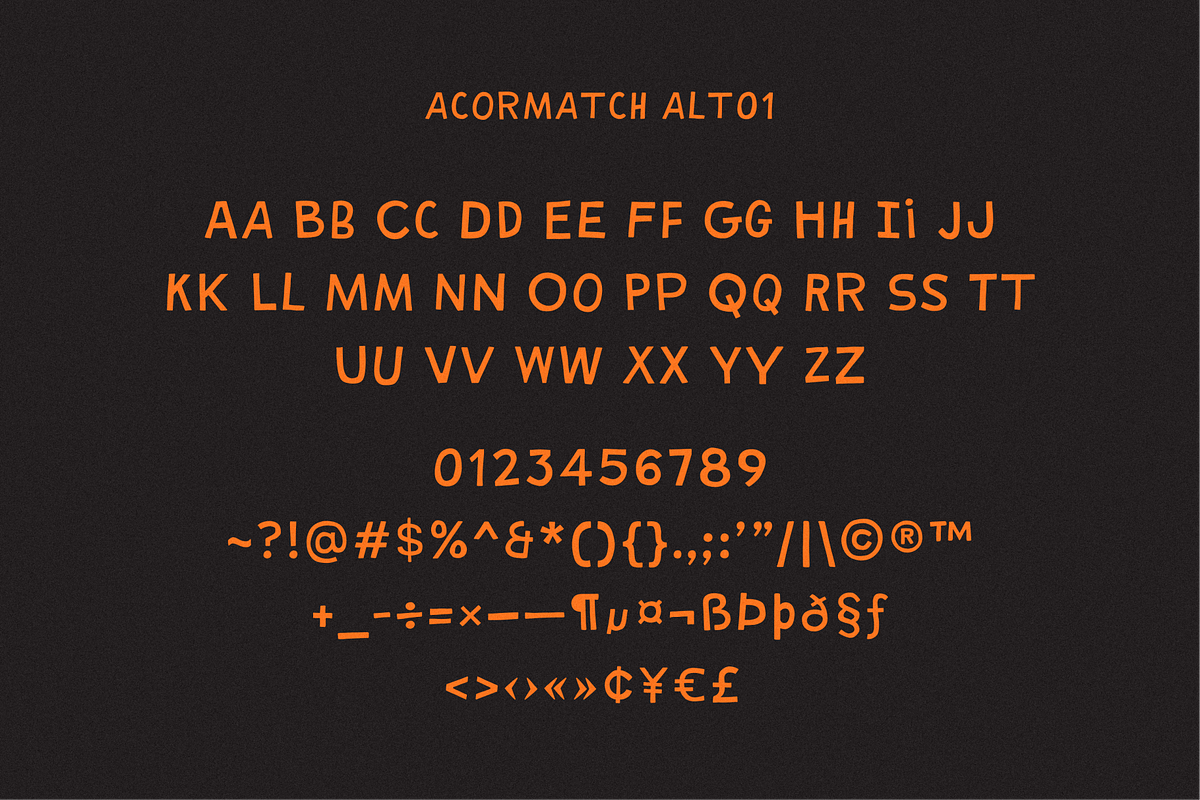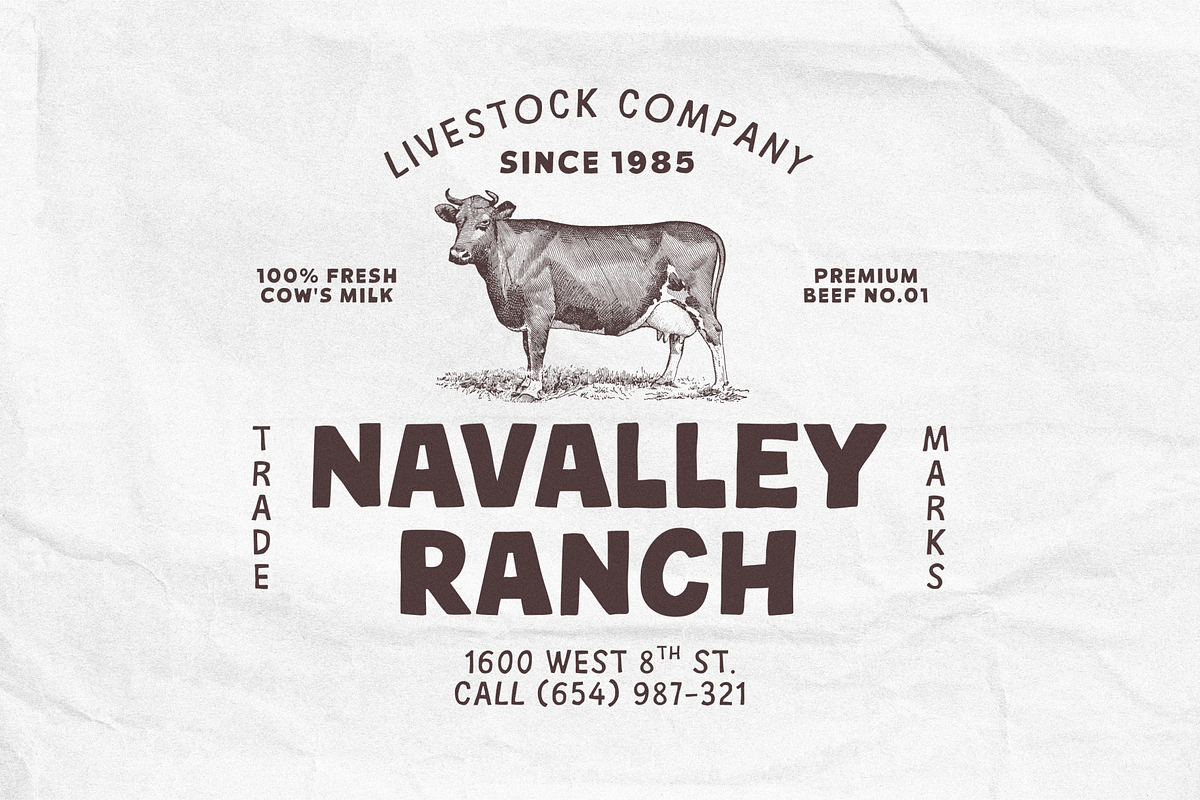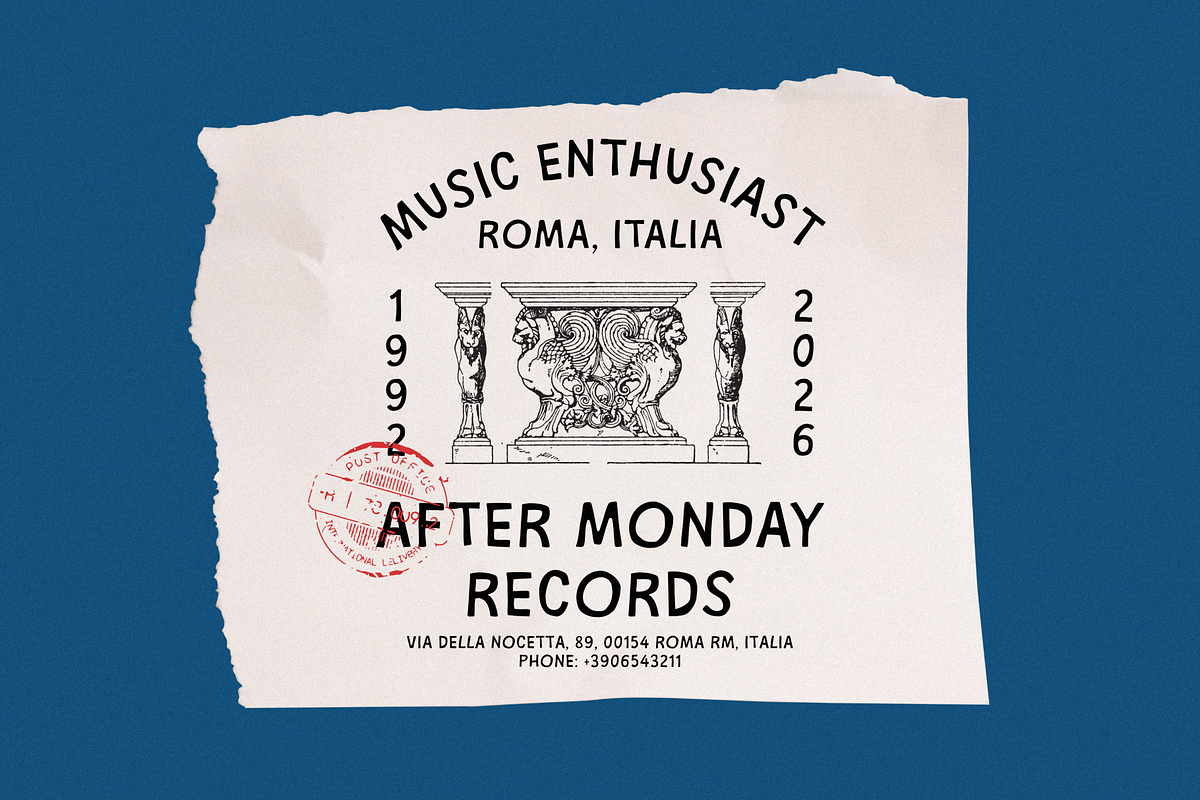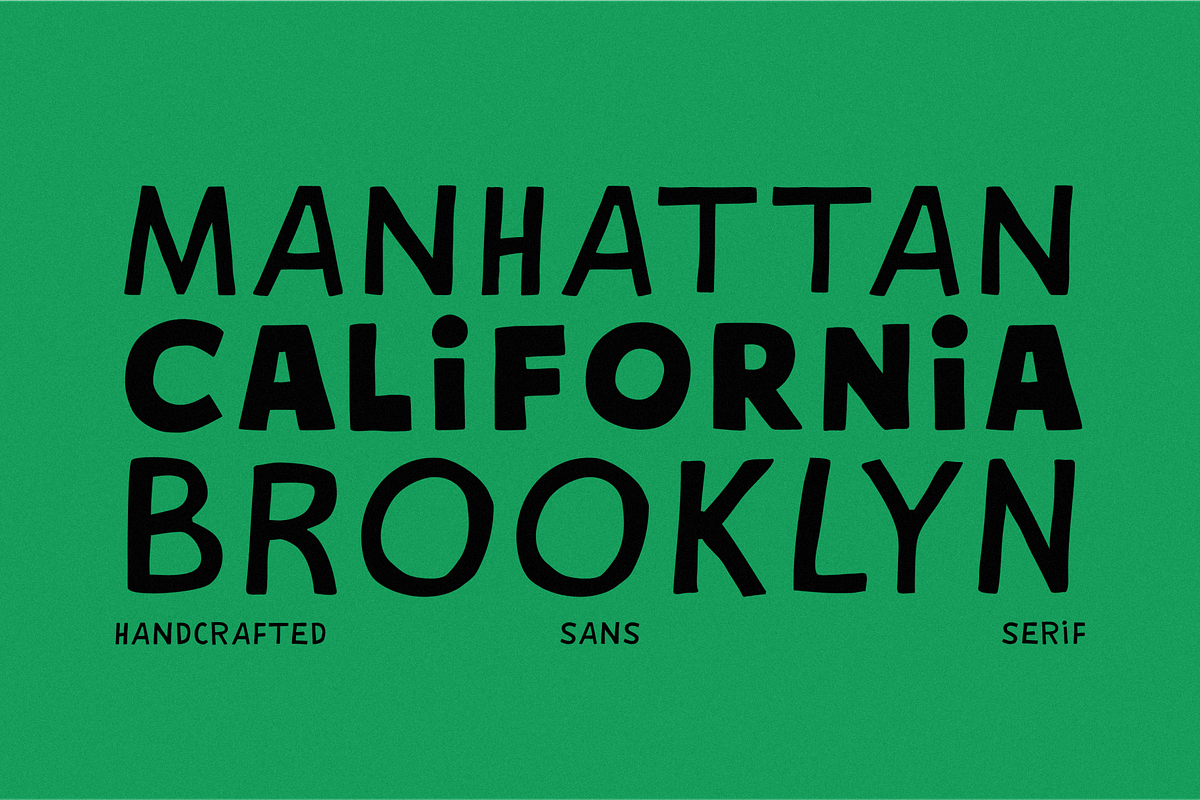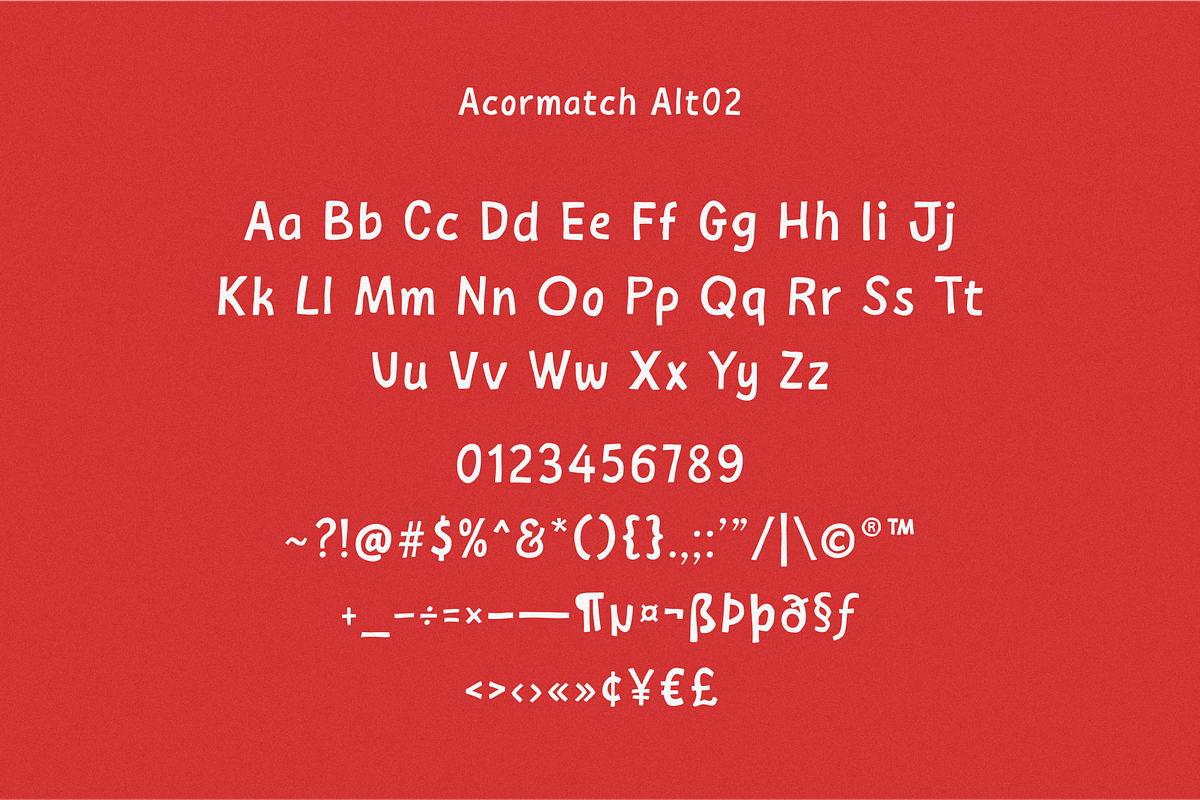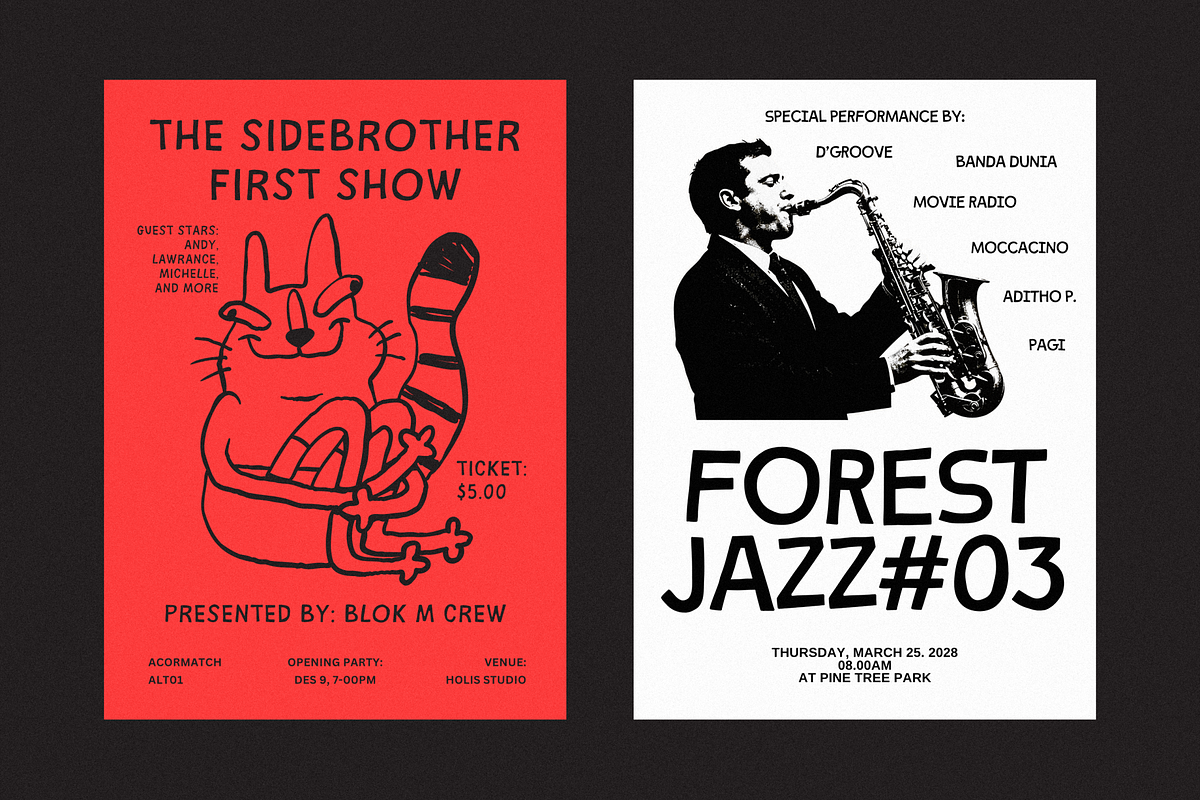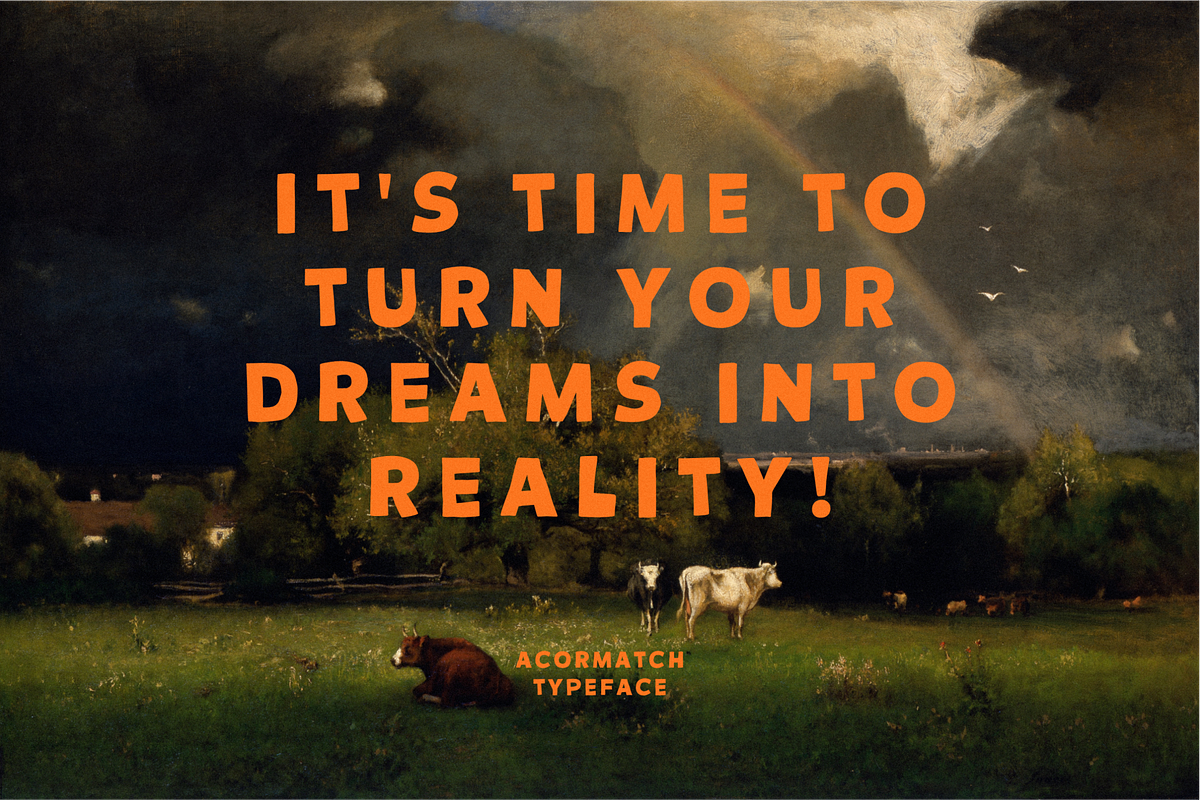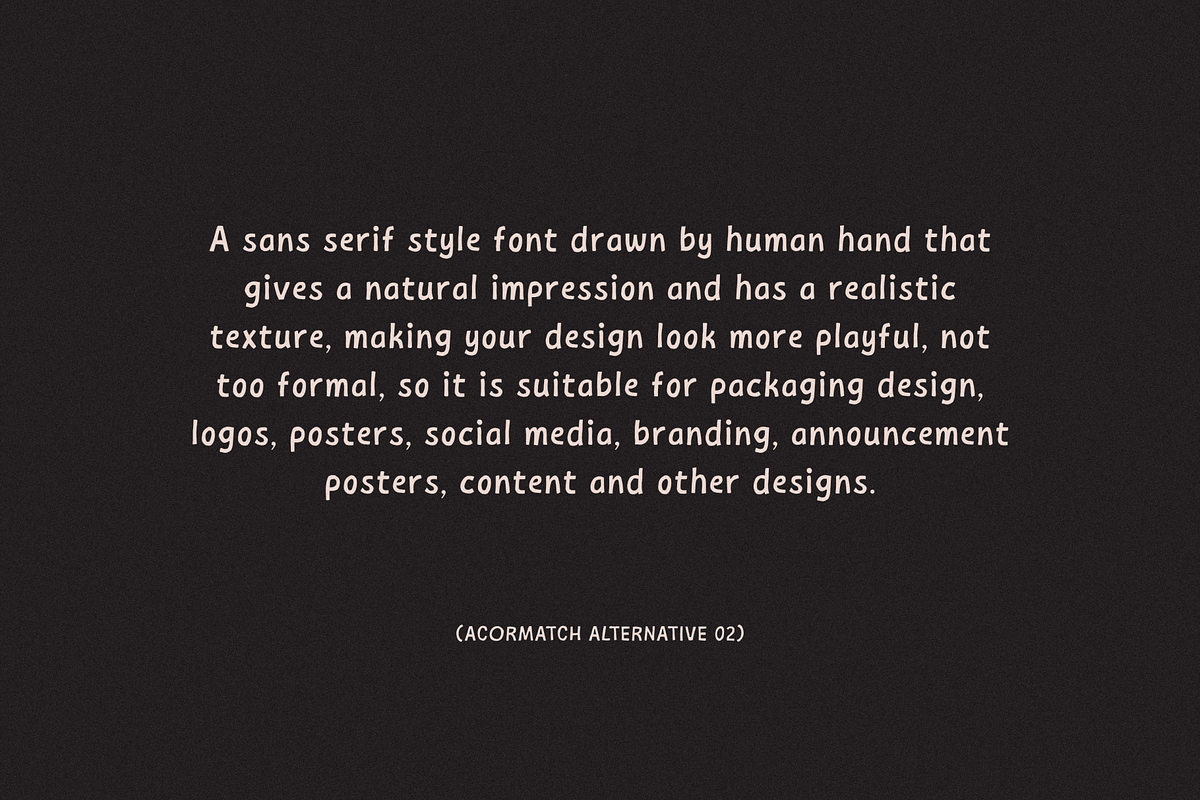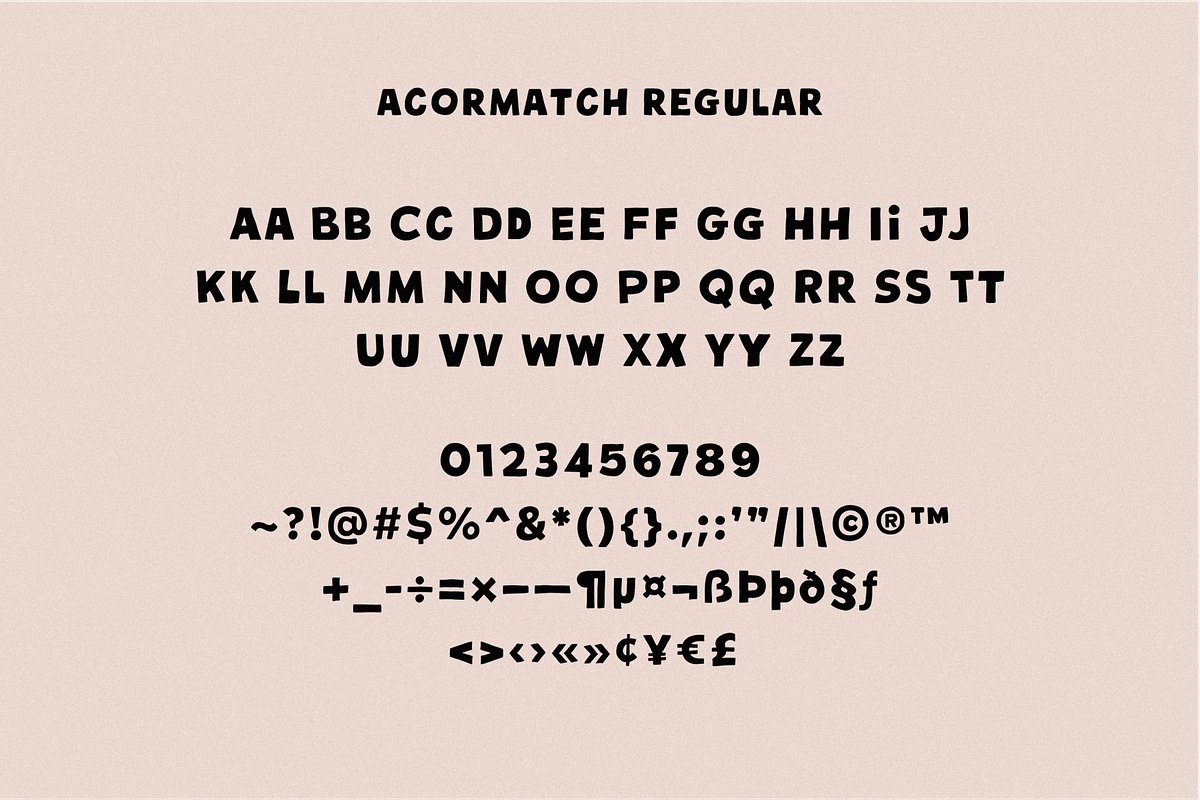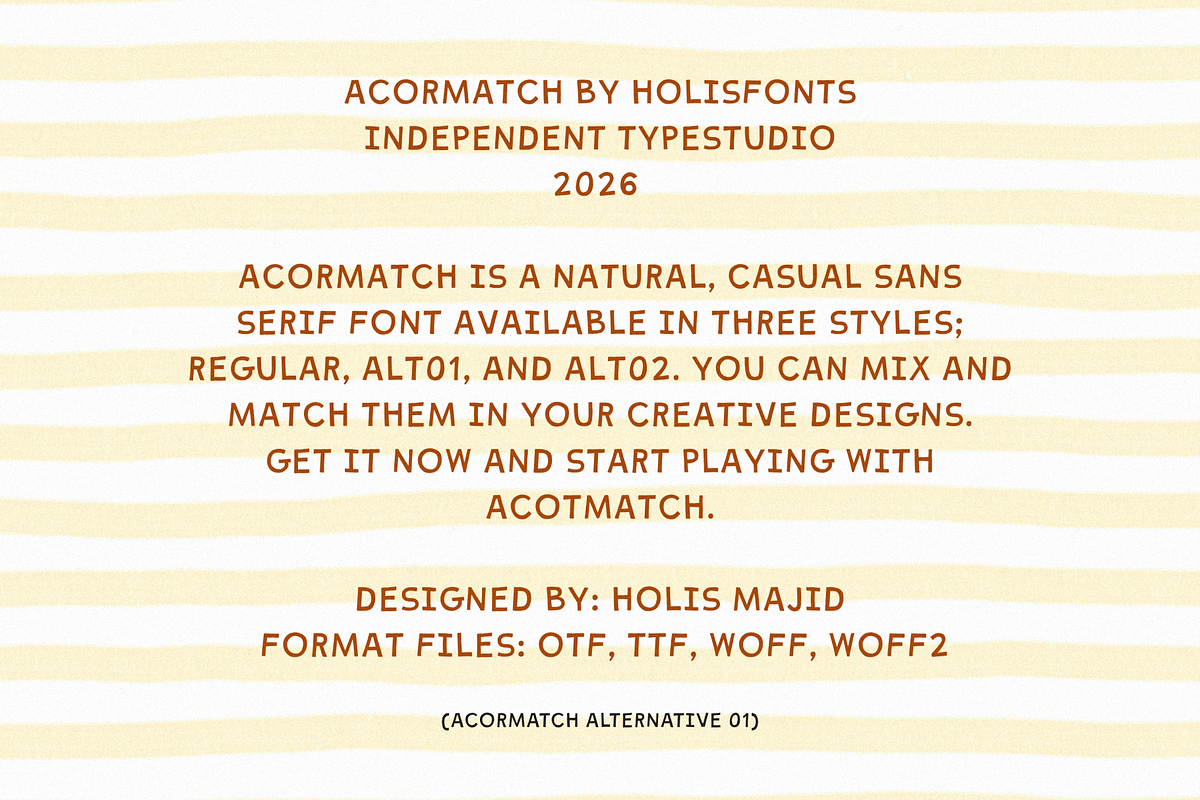
Acormatch Casual Hand Drawn
Acormatch is a bold and playful display font with a handcrafted spirit. Featuring chunky letterforms, slightly irregular edges, and a lively rhythm, it brings a warm, friendly, and energetic personality to any design. Its organic shapes create a natural, approachable feel while maintaining strong visual impact. Perfect for branding, packaging, children’s products, posters, logos, headlines, social media graphics, and creative projects that need a touch of fun and authenticity.
Children’s Branding
Food & Beverage Branding
Posters & Headlines
Merchandise Design